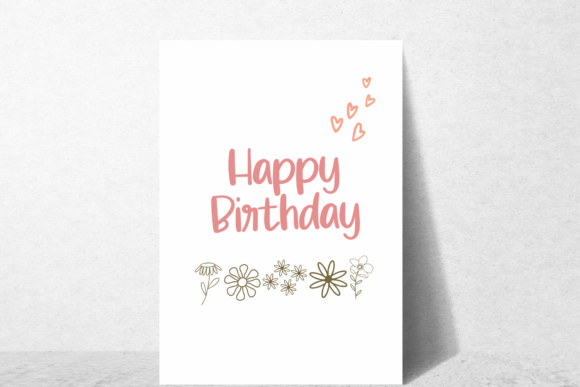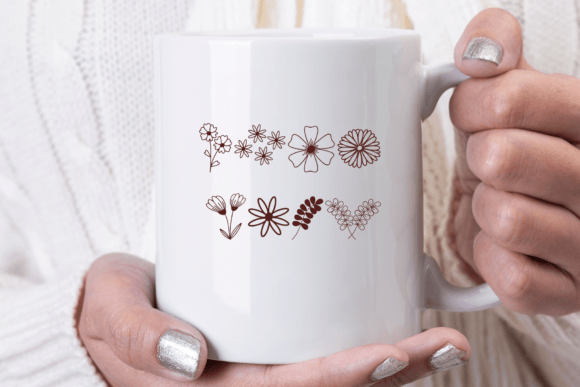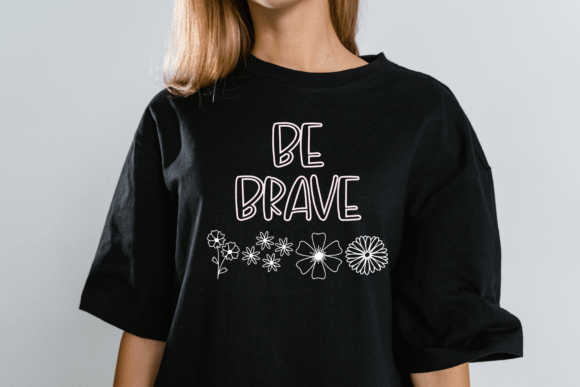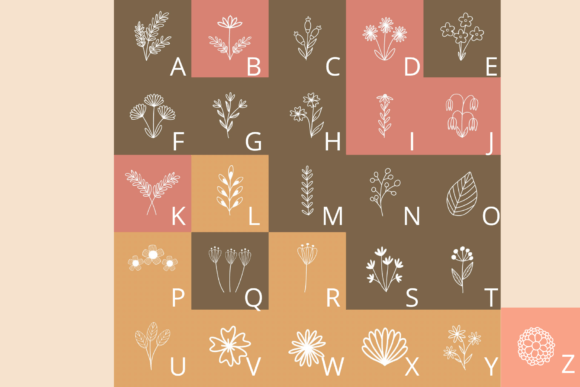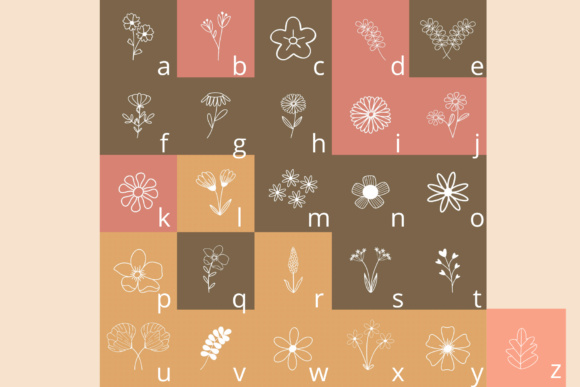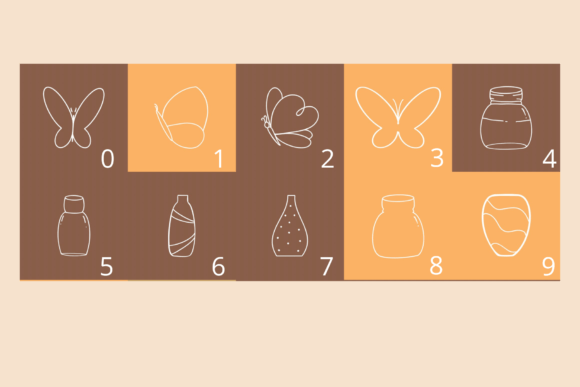
Introduction to Line Doodle Font
Have you ever stared at a blank canvas, trying to bring your creative vision to life, only to find the perfect font eluding you? It’s a frustrating experience, but one that can be a thing of the past with the introduction of the stunning Line Doodle Font.
Whether you’re a seasoned designer or just starting out, the Line Doodle Font is an invaluable resource that will elevate your creative projects to new heights. With its elegant and sophisticated design, this font is perfect for adding a touch of class to any project, from logos and product packaging to social media posts and wedding designs.
Key Features of Line Doodle Font
- High-quality design resource perfect for creative projects, offering a unique and artistic touch.
- Includes a range of line doodle styles and variations, suitable for a variety of design applications.
Honest Review: Line Doodle Font
I recently stumbled upon the Line Doodle Font while searching for a free download to spice up my creative project. I was thrilled to discover that this font is available for free and offers high quality designs. The transparent background is also a huge plus, making it easy to integrate into any design resource.
- ✨ Unique and playful design style that sets it apart from other fonts
- ✨ High quality vector graphics that can be scaled without losing quality
- ✨ Transparent background, making it easy to customize and use in various design contexts
- ⚠️ Limited character set, which may not be ideal for longer texts
- ⚠️ May not be suitable for formal or professional designs due to its playful nature
Overall, I’m quite impressed with the Line Doodle Font. While it may have some limitations, its unique design style and high quality graphics make it a valuable addition to any design resource. If you’re looking for a fun and creative font to spice up your project, I’d definitely recommend giving this one a try.
Line Doodle Font
The Line Doodle Font is a high-quality, free download design resource perfect for creative projects. With its transparent background, it’s ideal for adding a unique touch to your designs.
To get the most out of the Line Doodle Font, experiment with different font sizes, colors, and styles. You can also combine it with other design elements, such as illustrations or graphics, to create a unique and eye-catching design.
The Line Doodle Font is perfect for creative projects, such as invitations, posters, and social media graphics. It’s also great for adding a personal touch to corporate materials, such as business cards and presentations.